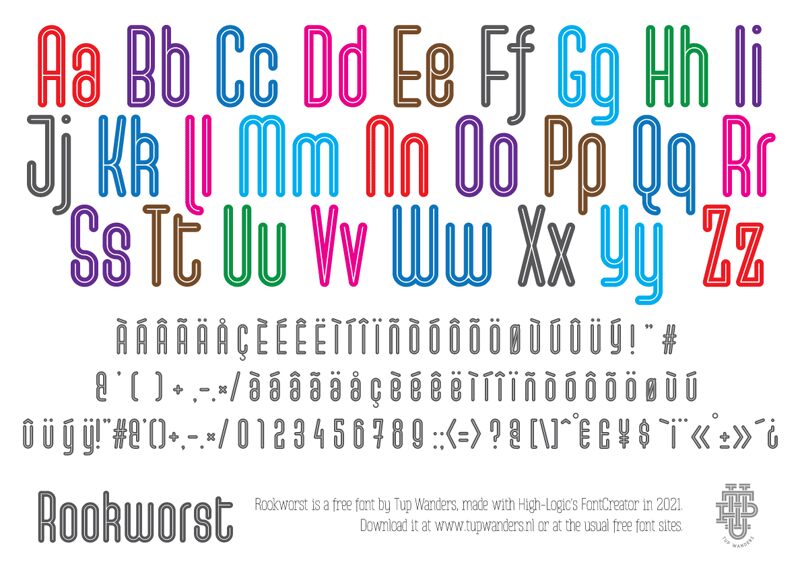
Rookworst
Rookworst font by Tup Wanders is a geometric display typeface with outlined, condensed structure. It’s both clean and illustrated with a modern design made entirely out of shapes and lines. And while the elements aren’t repetitive, they do carry similar notes which lead to organized letters that maintain balance when joined together.
Ideal for logotypes, this free geometrical font can also be used for posters or other print designs. Use it for headings within newspapers or magazines along with film covers and CD appearances. Its freshness is also applicable on a business card level when used as the company font type.